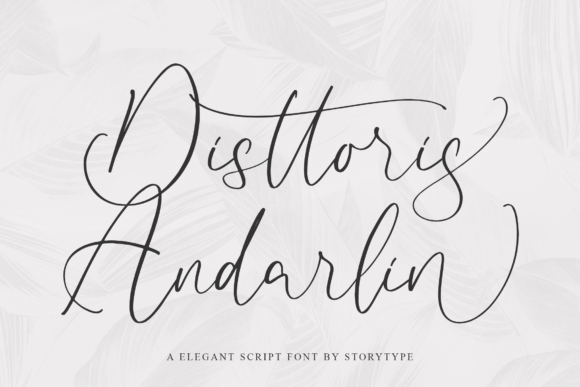
Step into the world of elegance and sophistication with Disttoris Andarlin, a script font that will transform your creative visions into breathtaking realities. This masterpiece, crafted by the renowned Storytype Studio, is not just a font; it's an experience that will elevate your designs to new heights of beauty and charm.
Unlike ordinary fonts that blend into the crowd, Disttoris Andarlin stands out with its captivating curves, delicate swashes, and timeless appeal. Inspired by the grace of calligraphy, this font embodies the essence of handwritten artistry, bringing a touch of warmth and personality to your digital creations.
With Disttoris Andarlin, the possibilities are endless. Whether you're a seasoned designer or just starting your creative journey, this font will become your trusted companion. From Instagram posts that demand attention to DIY projects that radiate uniqueness, Disttoris Andarlin will effortlessly elevate your designs, making them shine brighter than ever before.
Imagine crafting gift cards that feel like heartfelt tokens of appreciation, invitations that evoke a sense of anticipation and excitement, or social media graphics that captivate your audience with their enchanting allure. Disttoris Andarlin is the perfect font for adding that extra touch of elegance to any project, leaving a lasting impression that speaks volumes.